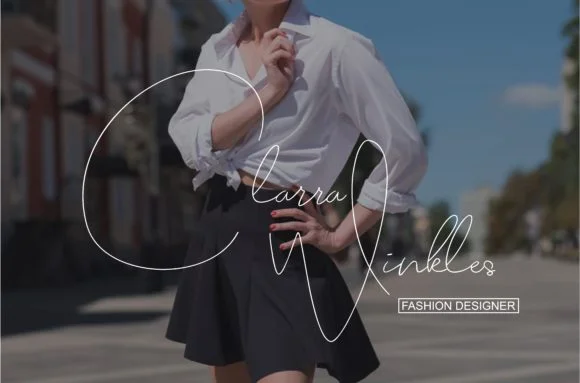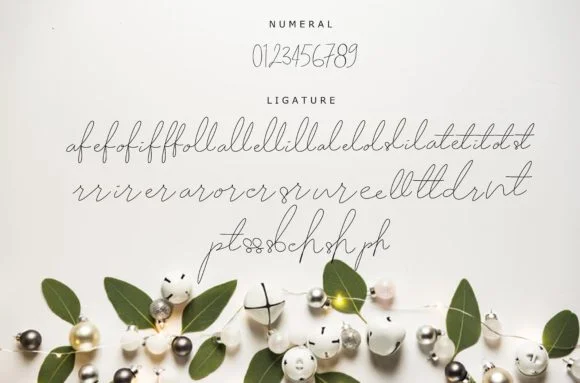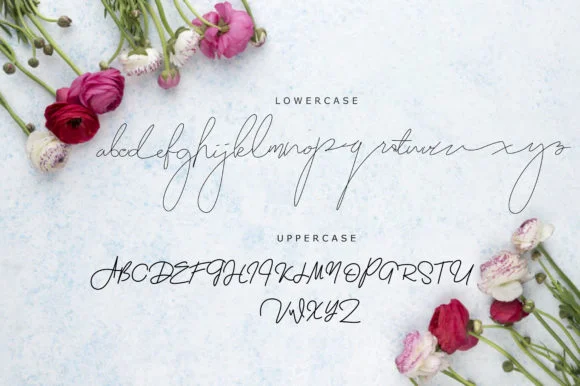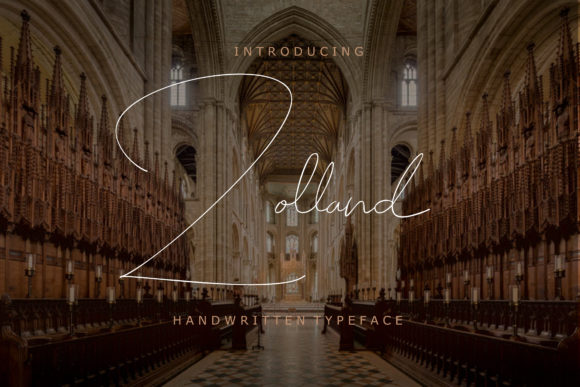
Zolland Font
When a design brief calls for both consistent type colour across continuous text and immediate visual impact, type choices matter — Zolland answers that brief. The typeface brings an elegant, calligraphic sensibility to a broad range of creative disciplines, with strong typographic hierarchy support that holds up whether the work is print-first or screen-first.
In practice, Zolland proves particularly effective for poster creation, web design, annual reports, product labels, high-end cosmetic packaging. Designers reaching for it find that the type decisions feel resolved rather than laboured — a useful quality when client timelines are tight.
The range of applications extends to advertising campaigns, perfume labels, fragrance labels, editorial layouts. That breadth is deliberate: the proportions and spacing were stress-tested across a wide range of mock briefs before the typeface was finalised.
At smaller sizes the design retains its character without becoming cluttered. This resilience across scales makes Zolland equally suitable for a business card and a billboard — a useful property when assets must scale across a campaign.
Motion designers building title sequences and lower thirds find Zolland a reliable choice for projects that demand both personality and restraint. The design avoids the self-conscious quirkiness that dates quickly, settling instead for considered distinctiveness that holds up over time.